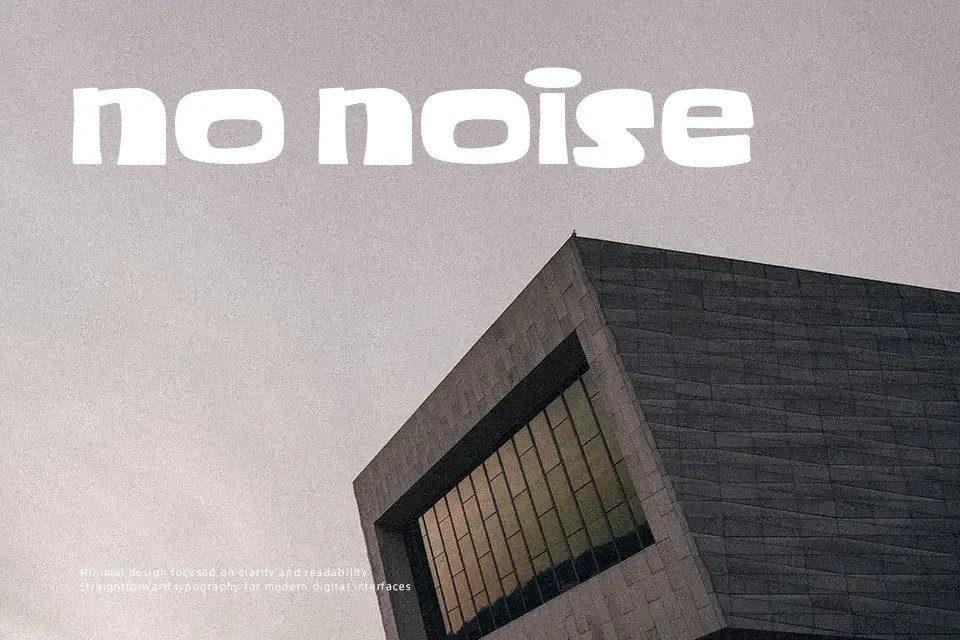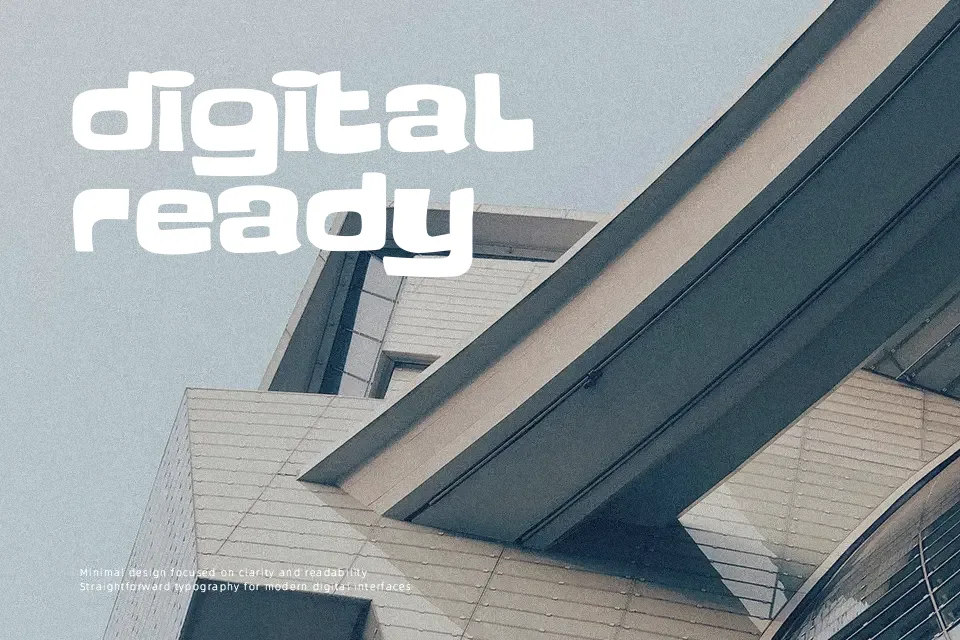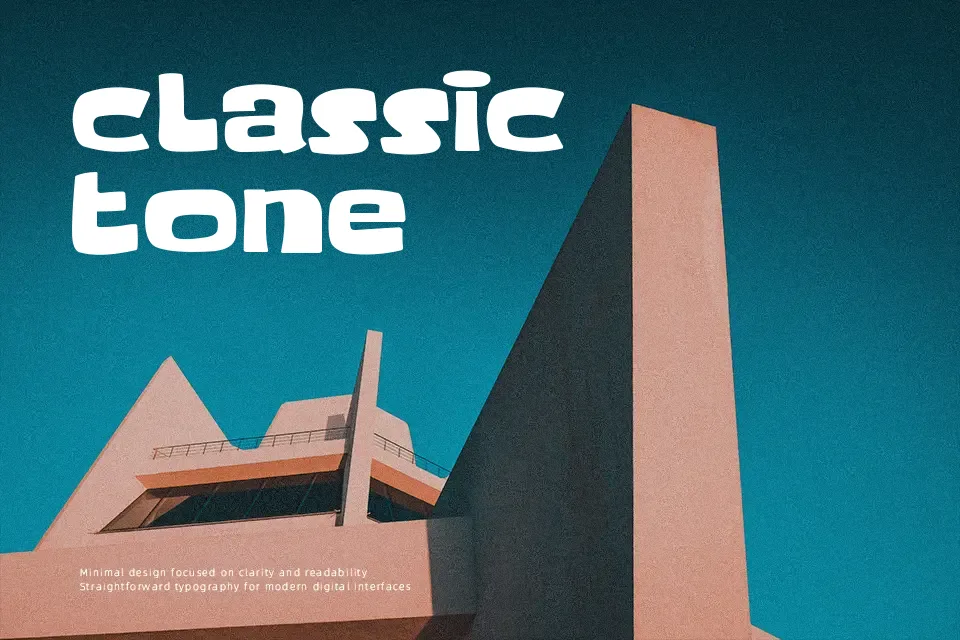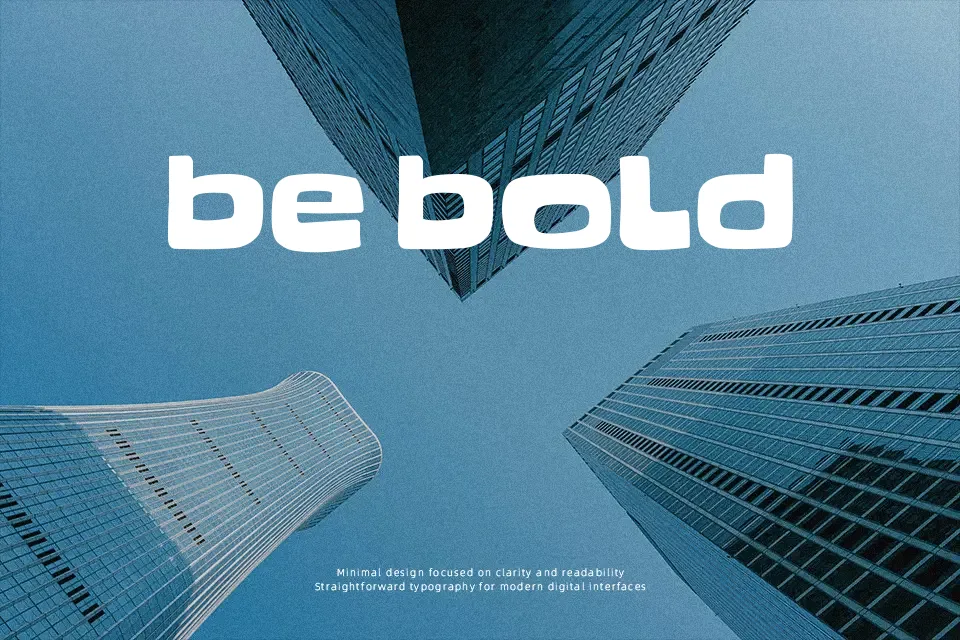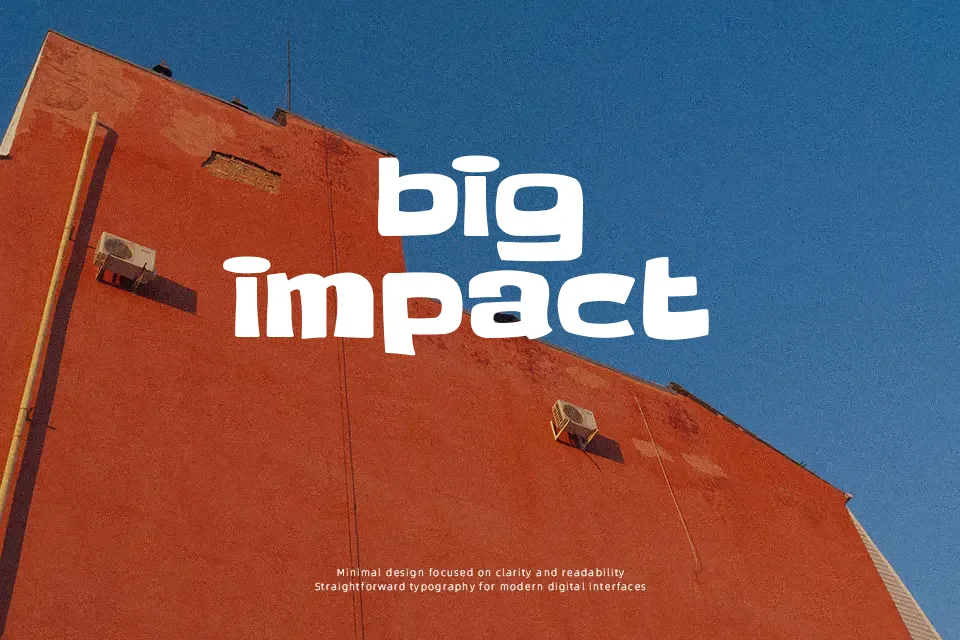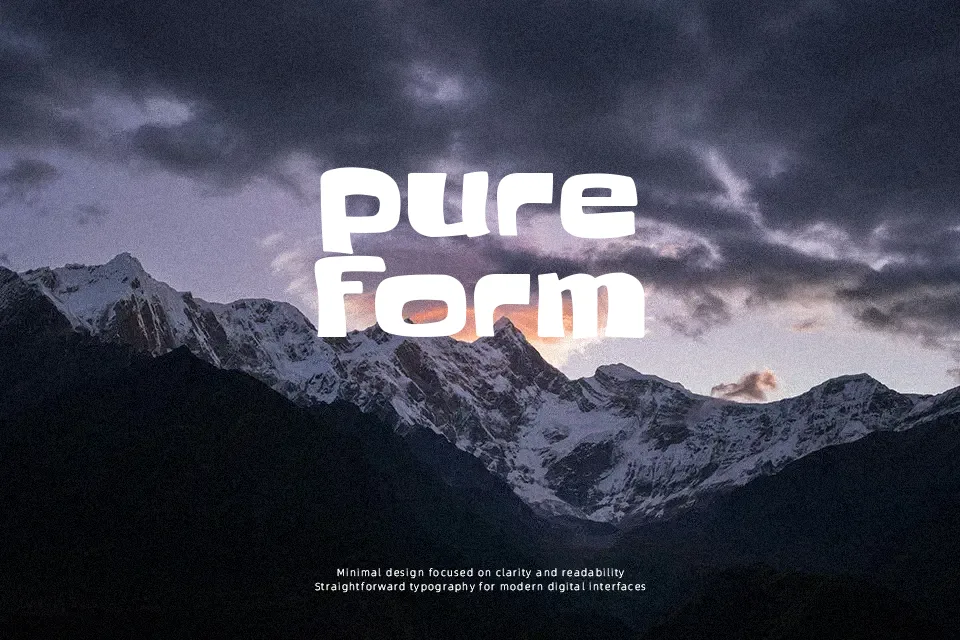
Playtimes Font
Playtimes Font introduces a groovy, dynamic structure characterized by thick, curved strokes and a bouncy visual rhythm. The letterforms display a casual, retro-leaning geometry with compact spacing that keeps words cohesive in large display formats. Its heavy weight provides excellent contrast for striking visual compositions, making the typeface highly effective for eye-catching music posters, playful packaging, and vibrant apparel graphics. The tight spacing helps maintain clarity in larger headlines, ensuring the energetic curves remain distinct. However, these dense forms reduce comfort during extended reading, making the design less suitable for long paragraph text or small interface captions.
playful product packaging
children’s apparel graphics
retro event branding
spreadsheet data
Perfect for branding, kids, and music, with a dynamic and cartoon style.